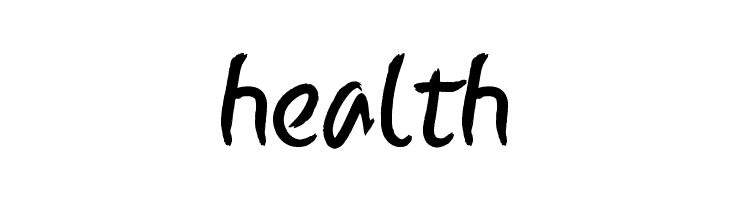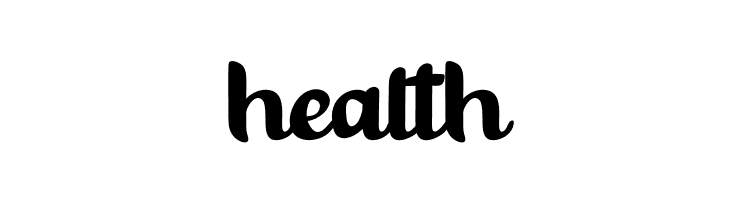
A whimsical, handwritten font with a light and airy style.
A bold, blackletter font with Christian monograms and symbols, ideal for historical themes.
A bold, rounded font with a playful and approachable style.
A casual, handwritten font with a smooth, flowing style.
A bold, distressed font with a grunge texture and rugged appearance.
A playful, hand-drawn font with a sketch-like texture and bold outlines.
A bold, geometric font with rounded edges and a modern, futuristic style.
A whimsical and artistic script font with a handwritten appearance.
An artistic script font with flowing, cursive-like lowercase letters.
A modern, geometric font with rounded edges and bold characters.
A bold, geometric font with rounded edges and a modern, playful style.
A playful, casual handwritten font with smooth, rounded edges and consistent stroke width.
A playful, handwritten script font with a casual and friendly style.
A dynamic and flowing script font with elegant cursive letterforms.
A bold, geometric font with circular cutouts for a playful, modern look.
A playful and decorative font with whimsical loops and curves.
A bold, modern font with thick strokes and a strong presence.
A bold, italic font with a modern and dynamic style.
A modern, italicized font with medium contrast and normal spacing.
A bold, elegant script font with flowing, cursive letterforms.
A bold, angular font with a geometric and modern style.